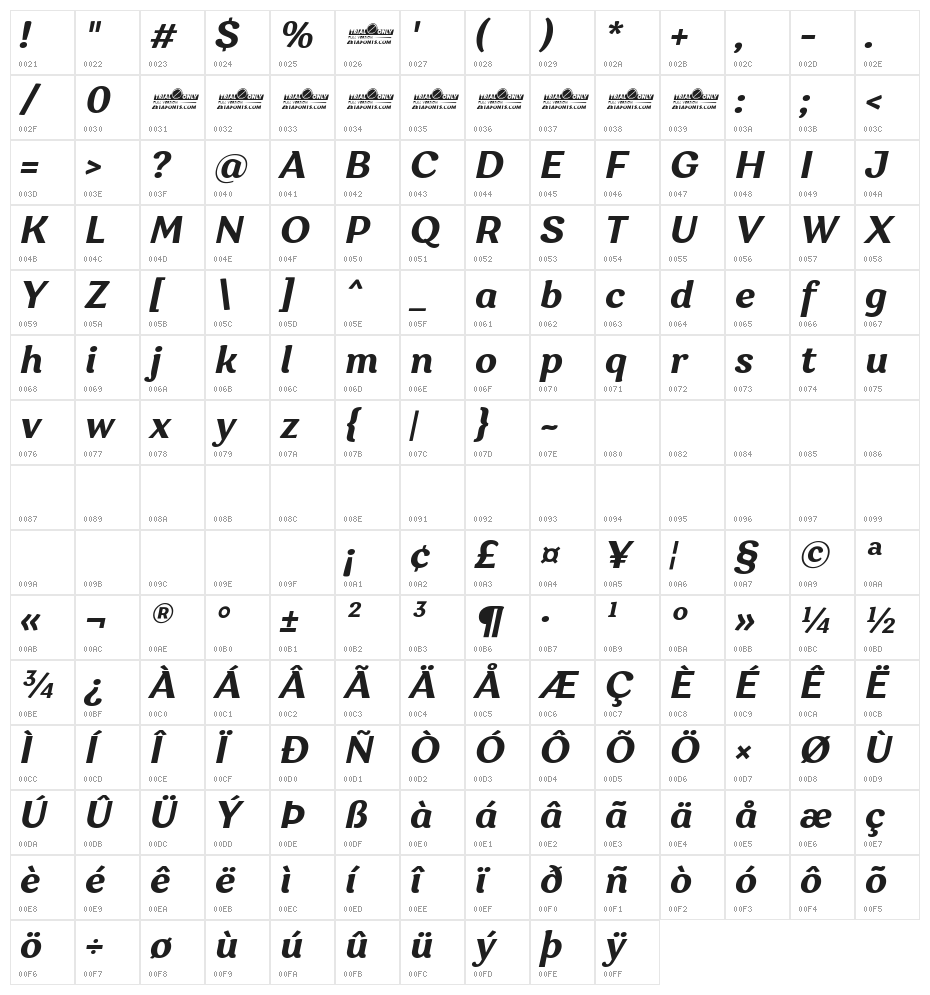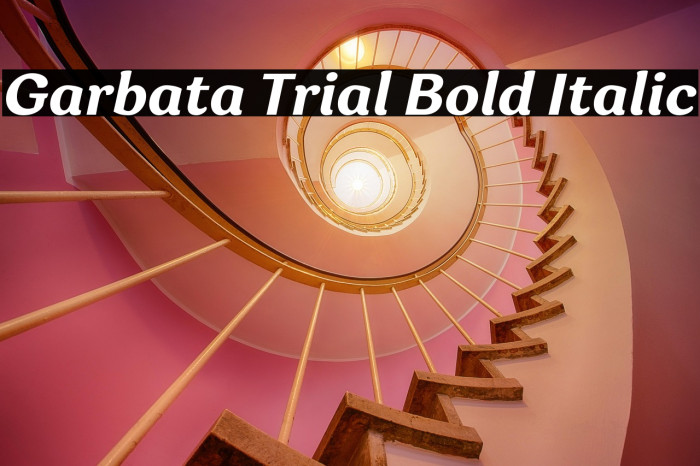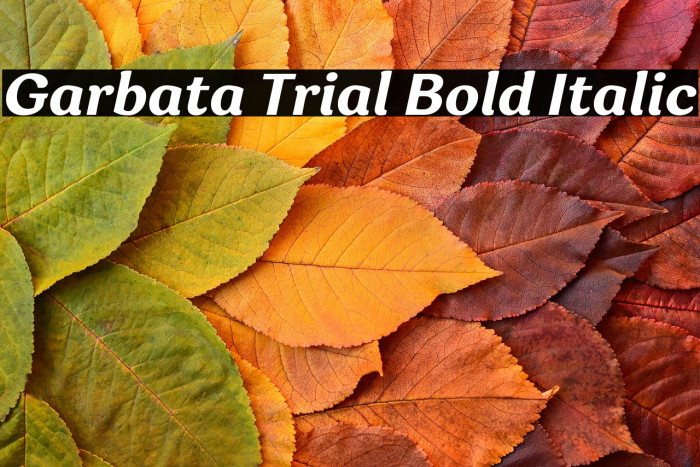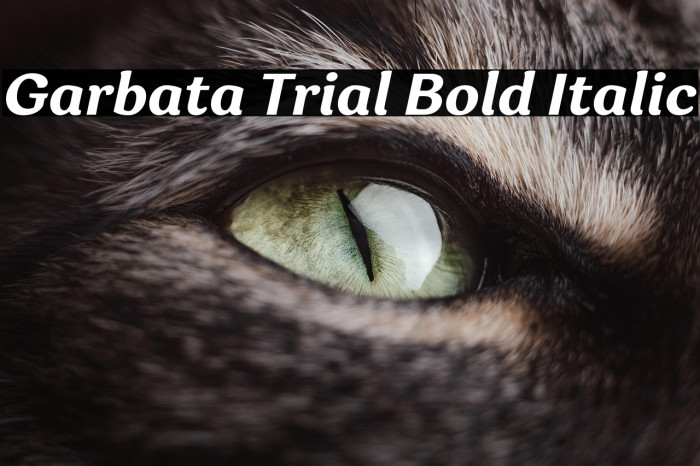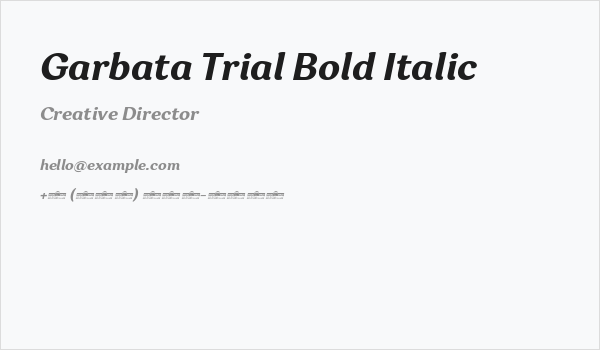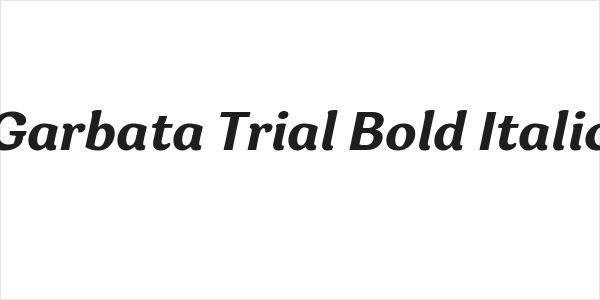
Garbata Trial Bold Italic Font
Garbata Trial Bold Italic Description
This font features a bold and italic style, combining strength with a dynamic slant. The uppercase and lowercase letters maintain a consistent weight, providing a sense of uniformity and balance. The characters are slightly condensed, enhancing readability while maintaining a compact appearance. The font's strokes are smooth and fluid, with moderate contrast between thick and thin lines, adding to its elegant yet assertive look. The special characters are designed to match the overall aesthetic, ensuring cohesion across all elements.
| Proposed Projects | Ideal for branding projects, headlines, and editorial design where a strong yet stylish impression is needed. |